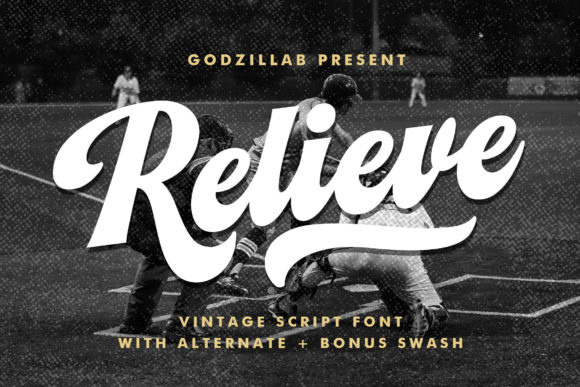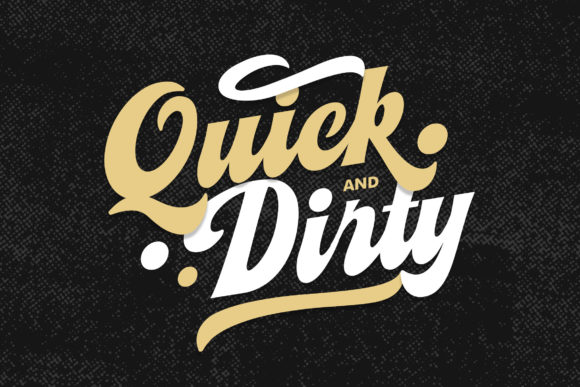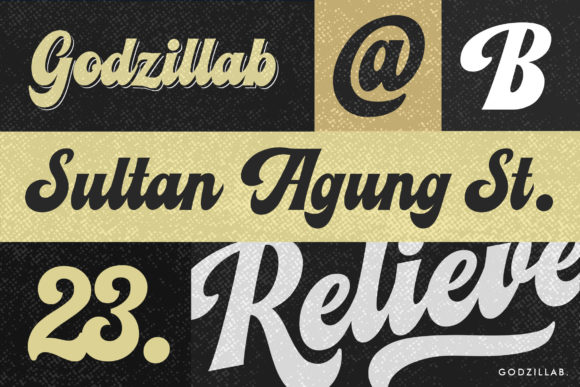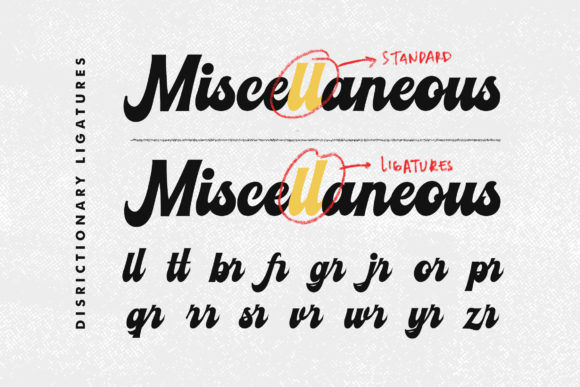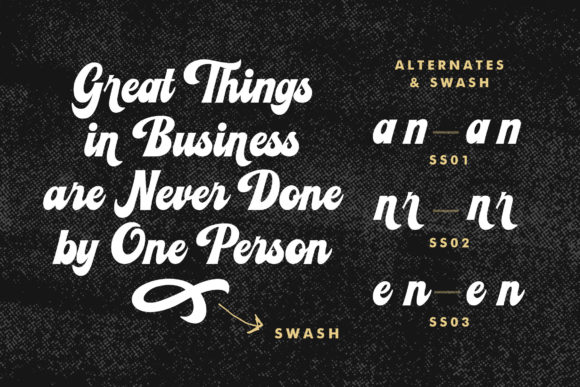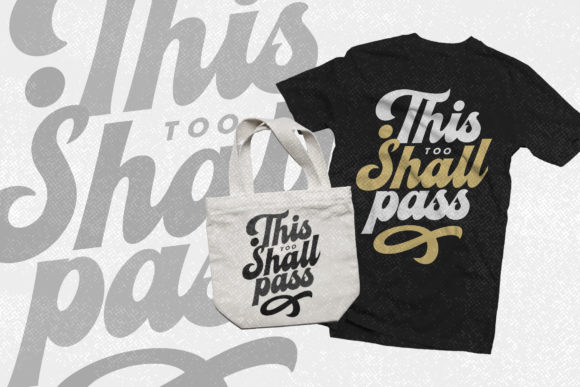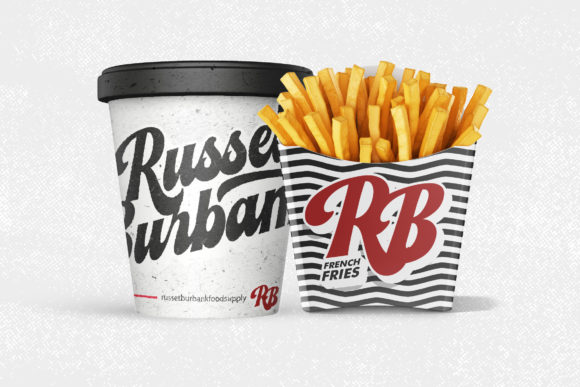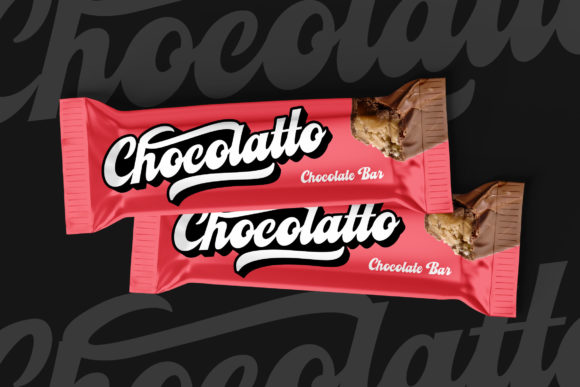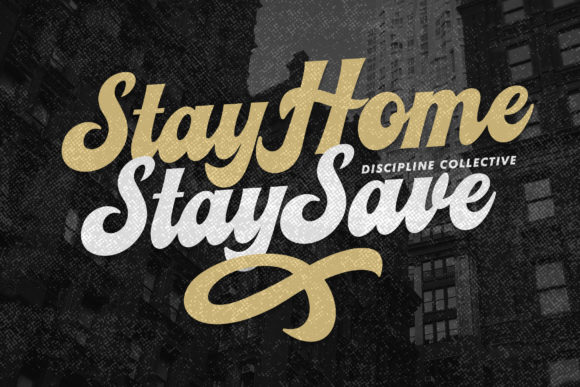
Relieve Font
About Relieve Font
Relieve is a gorgeous and flowing handwritten font, designed with the help of an outstanding brush pen. With an incredibly unique retro feel, this font is the right fit for your creative ideas!